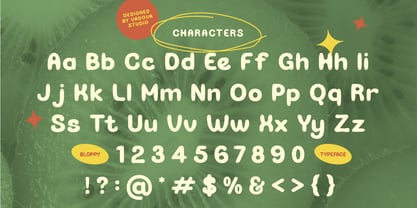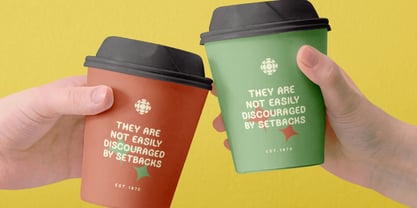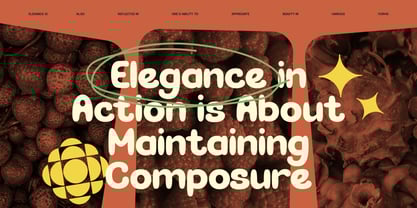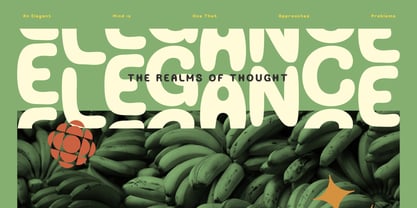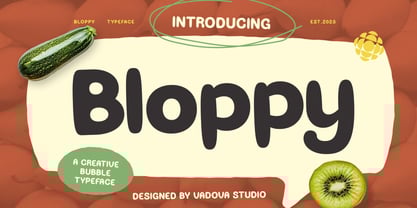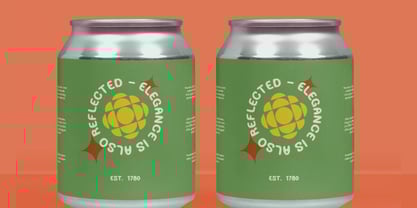
Bloppy
by Vadova Std
The Bloppy Font Family was designed by and published by Vadova Std. Bloppy contains 1 styles.
Elevate your designs with Bloppy Creative Bubble Font, a modern font perfect for adding elegance and style to your projects. Whether it’s for quotes, logotypes, magazine headers, or more, this versatile typeface ensures your text stands out beautifully.